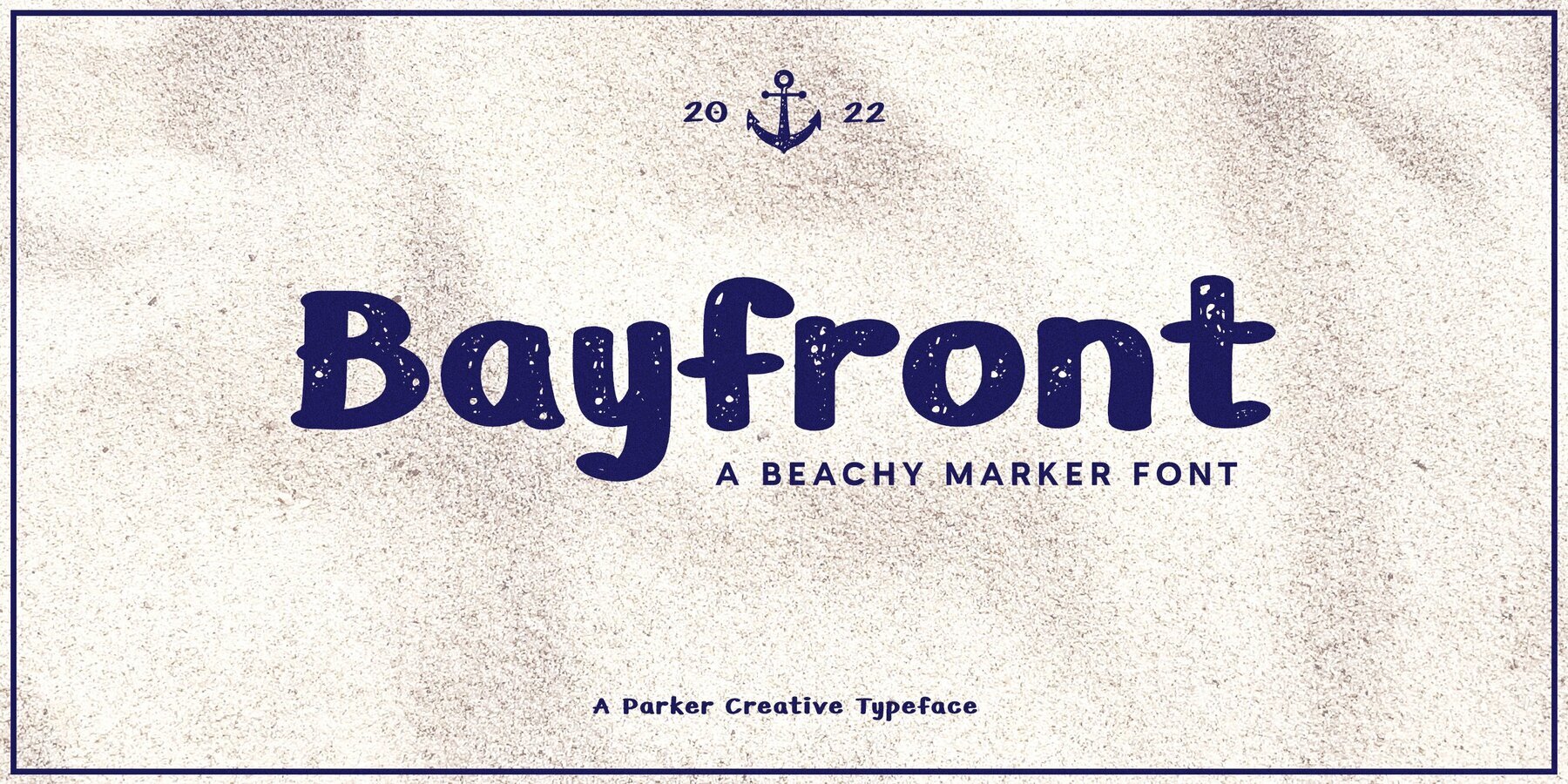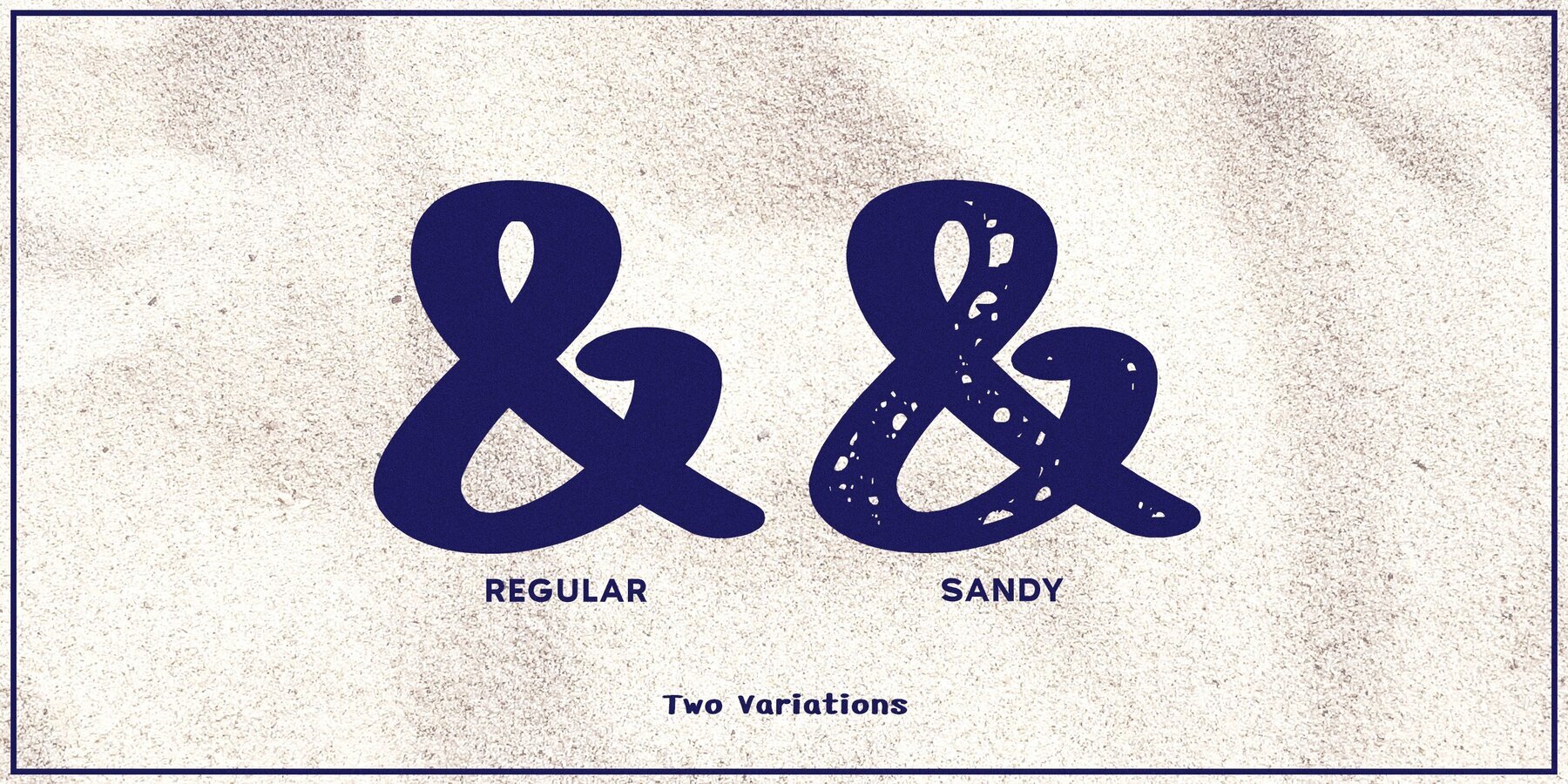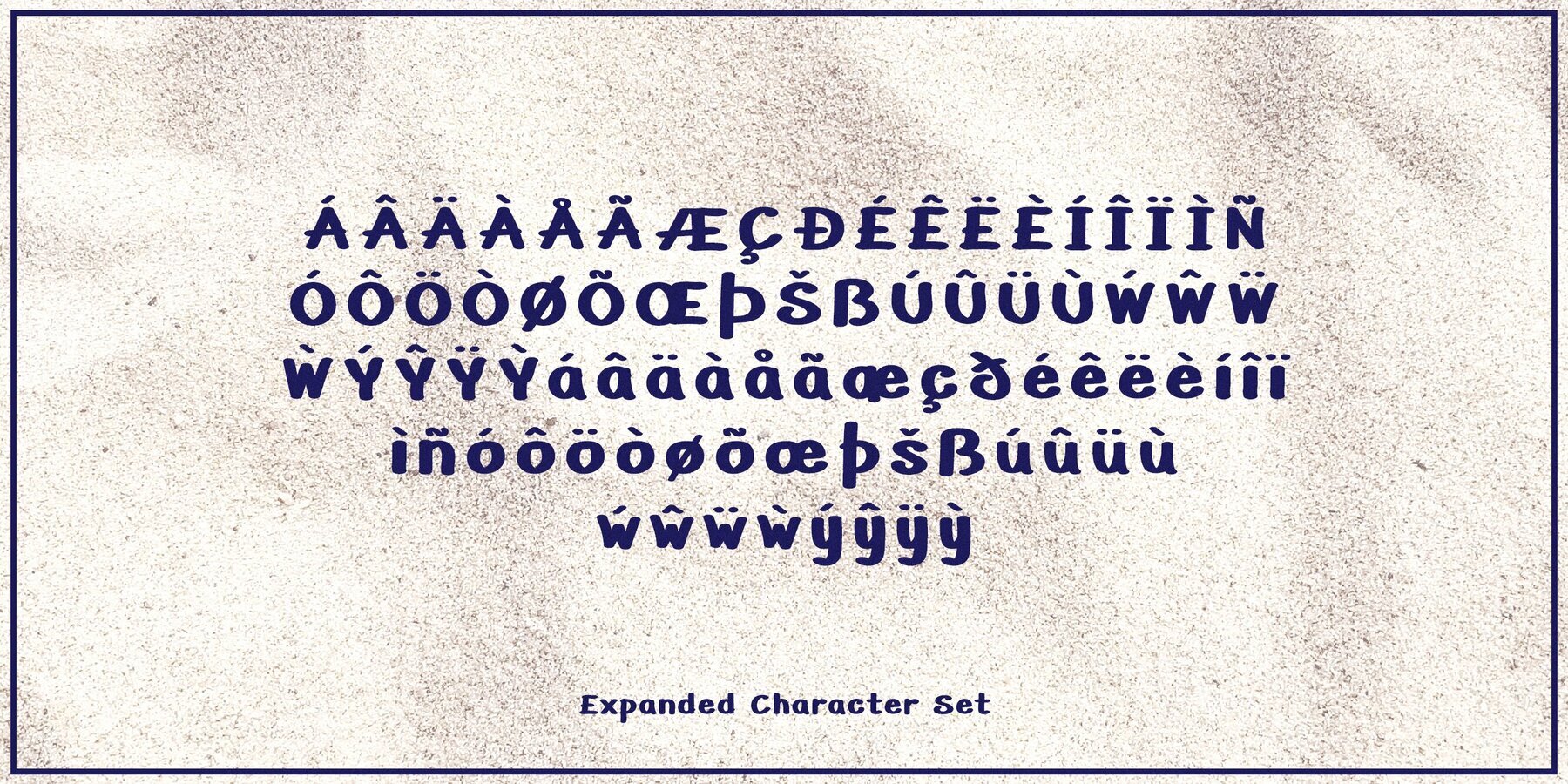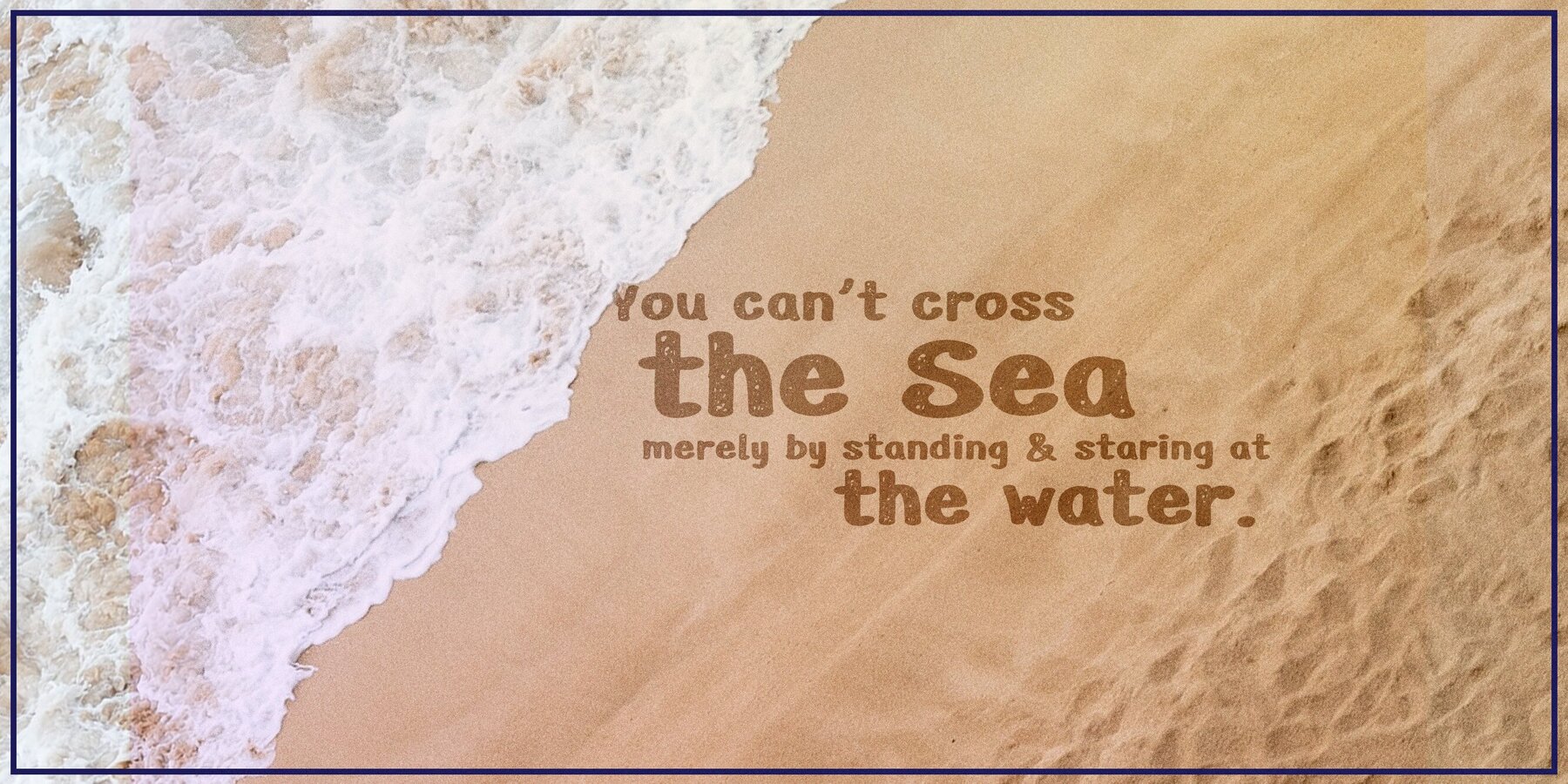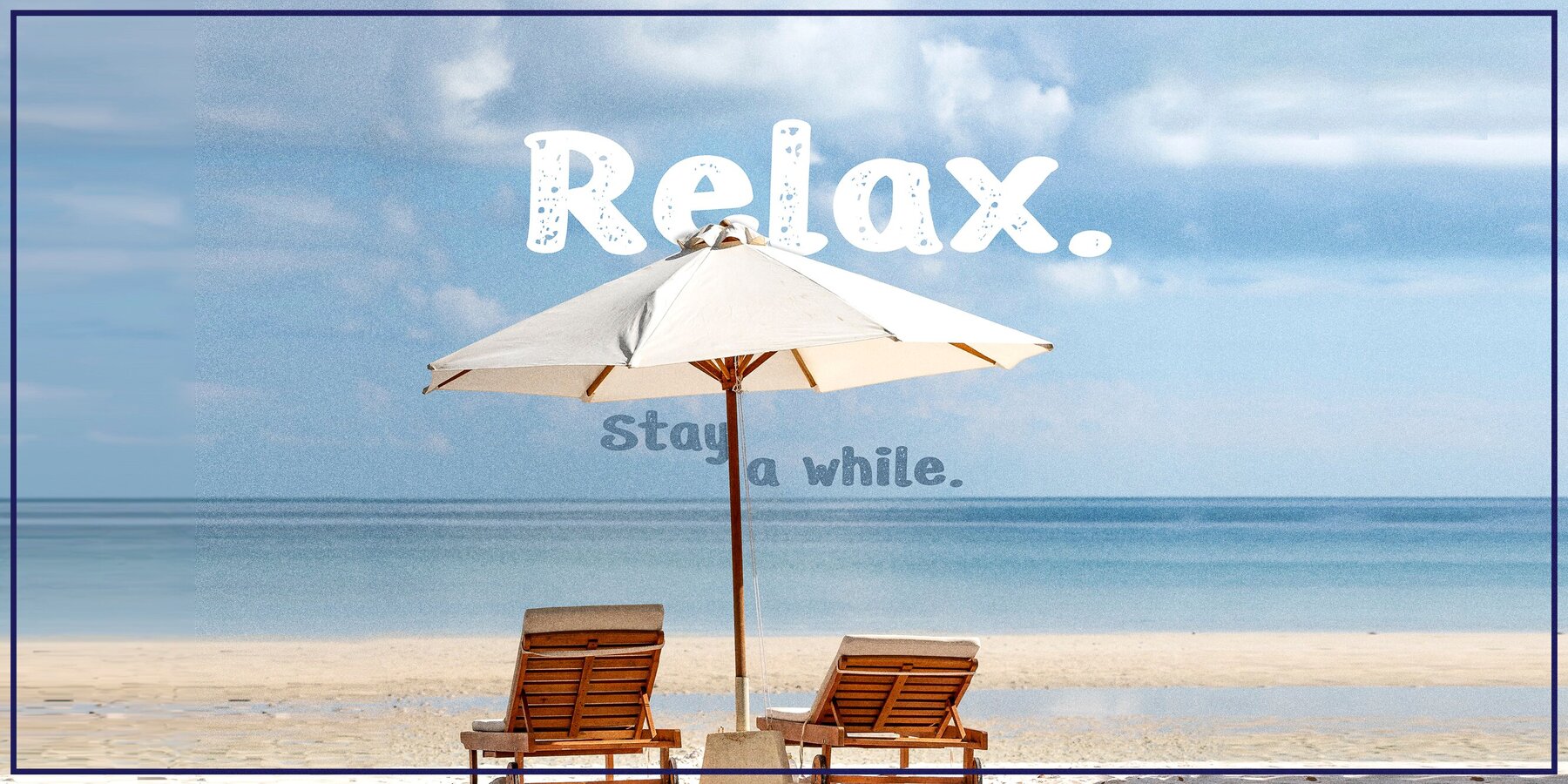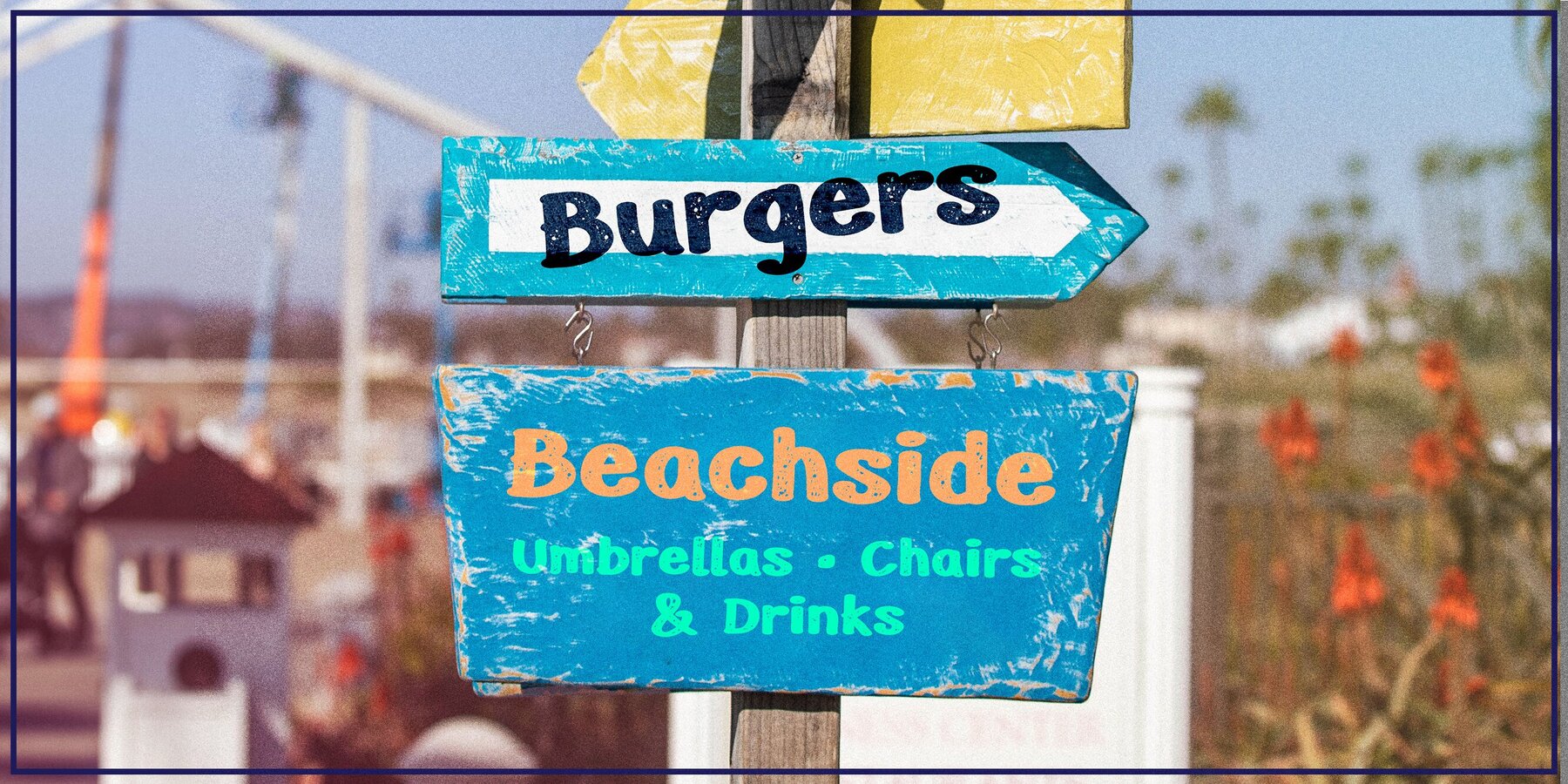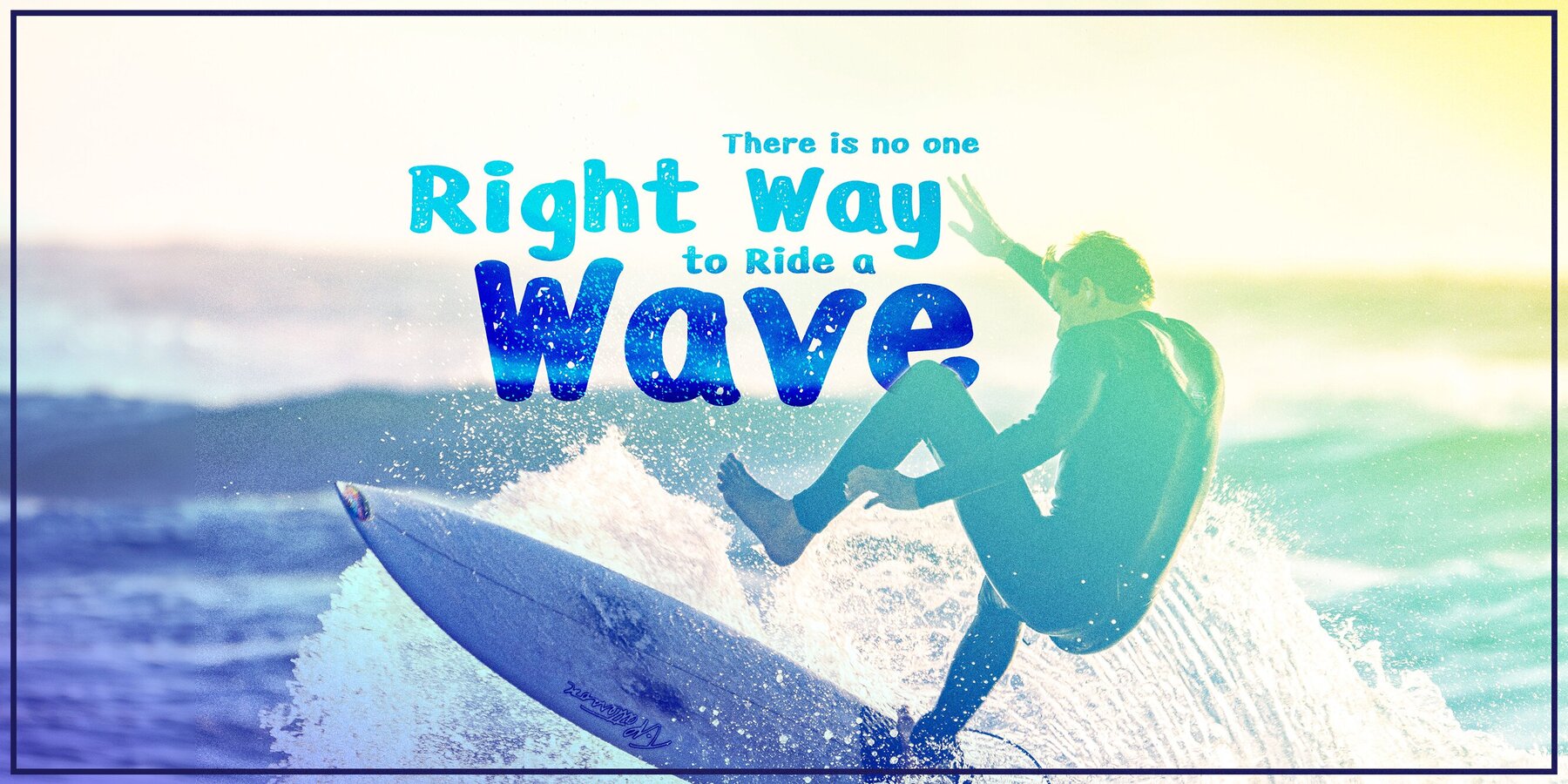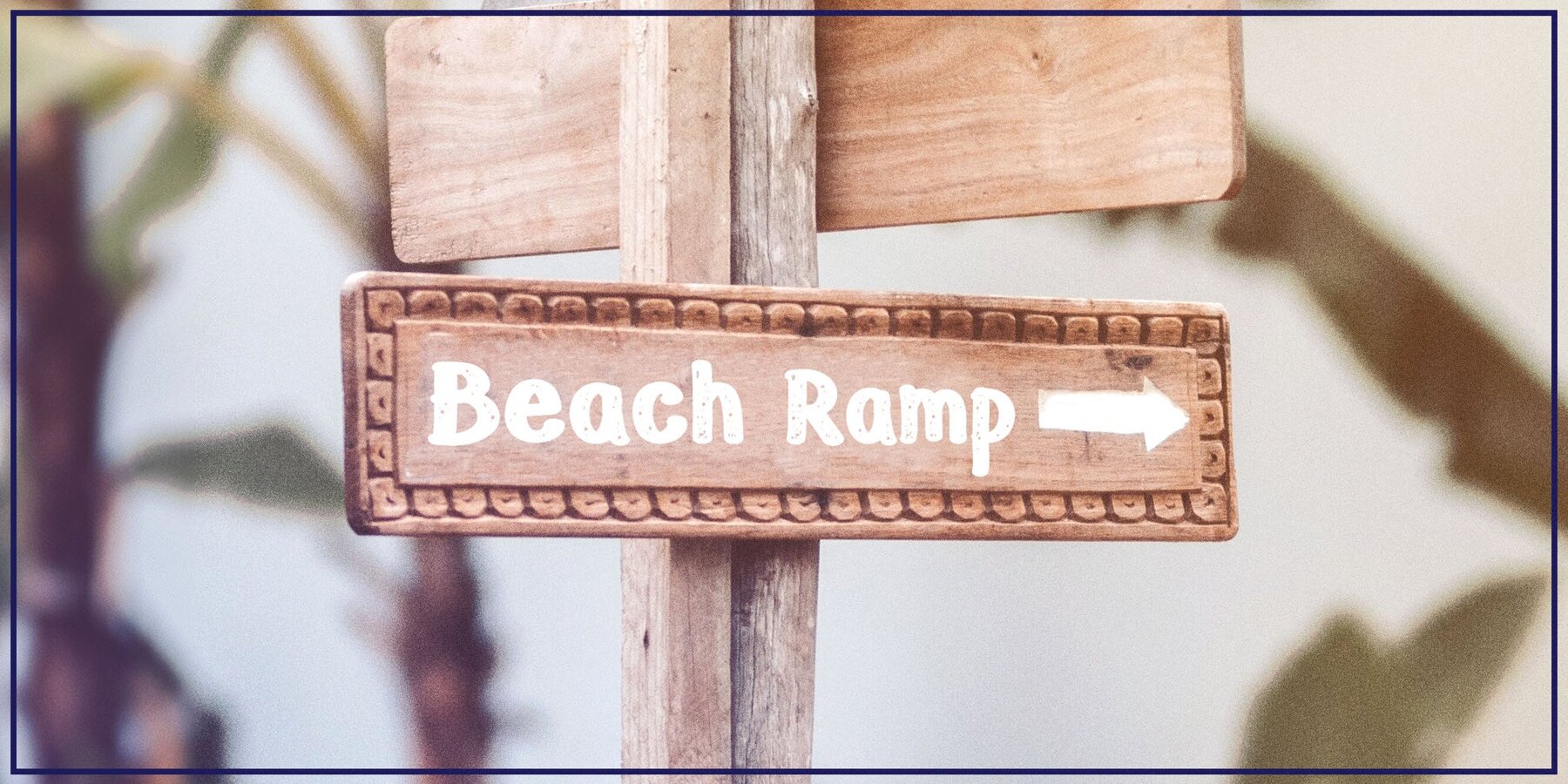
Bayfront Font
Bayfront Regular
Bayfront Sandy
Bayfront brings a bold, handwritten marker aesthetic to your creative projects. Defined by its thick lines and relaxed, casual style, this font captures the energy of hand-drawn lettering. The unique sandy variation introduces pronounced distressed markings, adding visual interest and a distinctive weathered texture ideal for contemporary design needs. Bayfront is suited for designers seeking a naturally weathered, summery look with versatility. Its detailed letterforms and special sandy style give your projects an authentic, approachable character.Bayfront Handwritten Marker Font